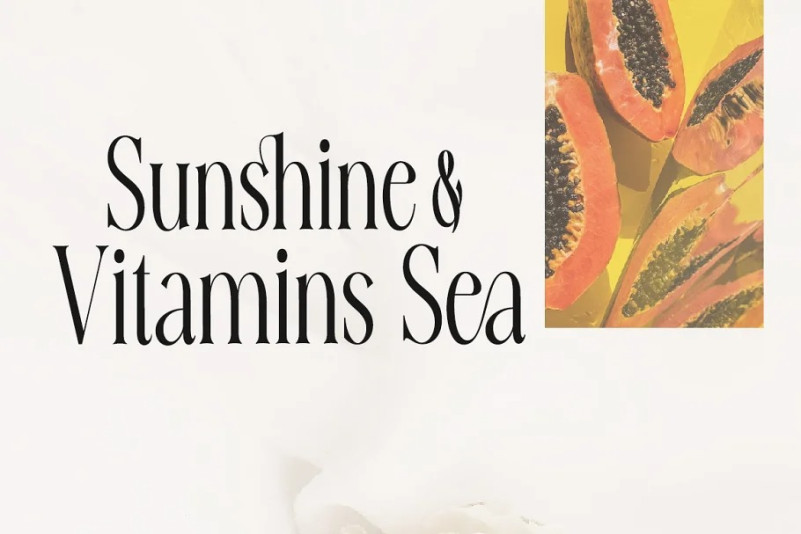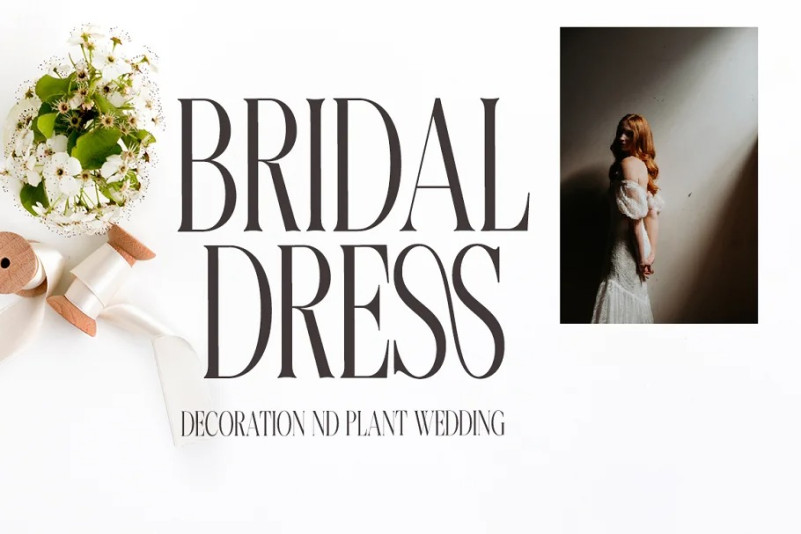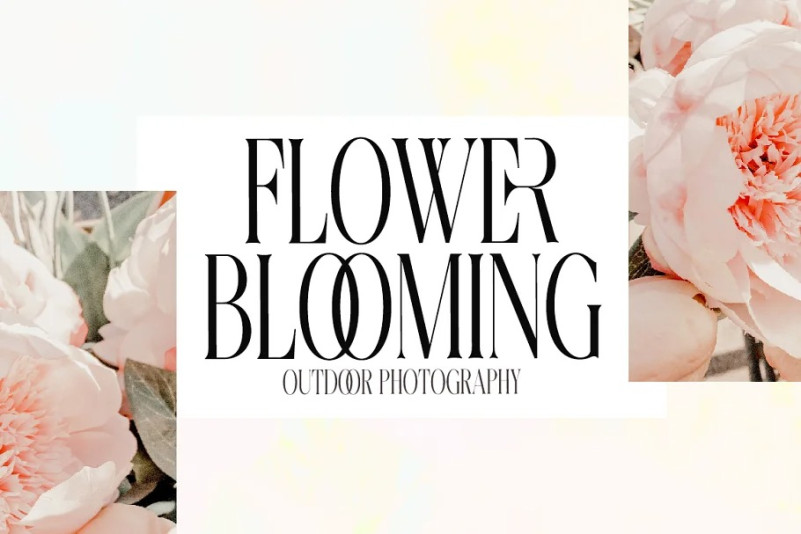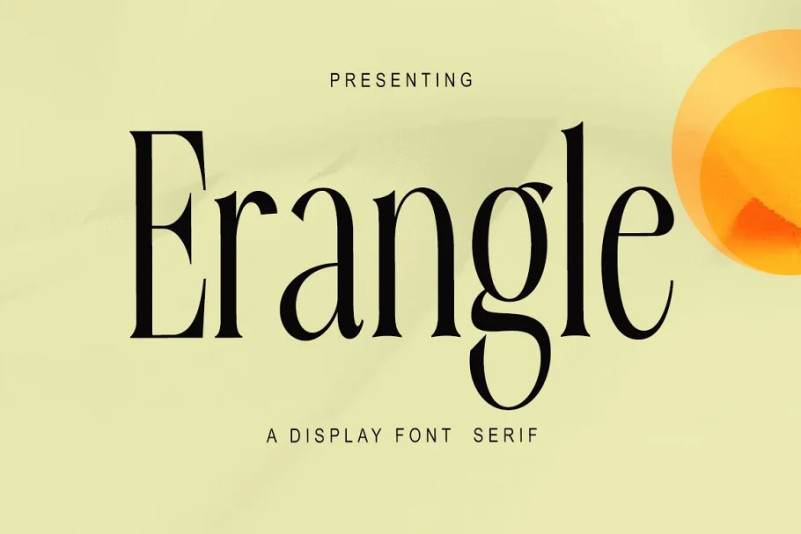
Erangle Font
Erangle Serif Font is a serif font specially created for elegant branding needs, with a more unique shape ready to add value to your brand. Thin to thick contrasting lines and elegant curves make Erangle the perfect font for this type of logo and display purposes. This font is good for logo design, Social media, Movie Titles, Books Titles, a short text even a long text letter and good for your secondary text font with script or serif.